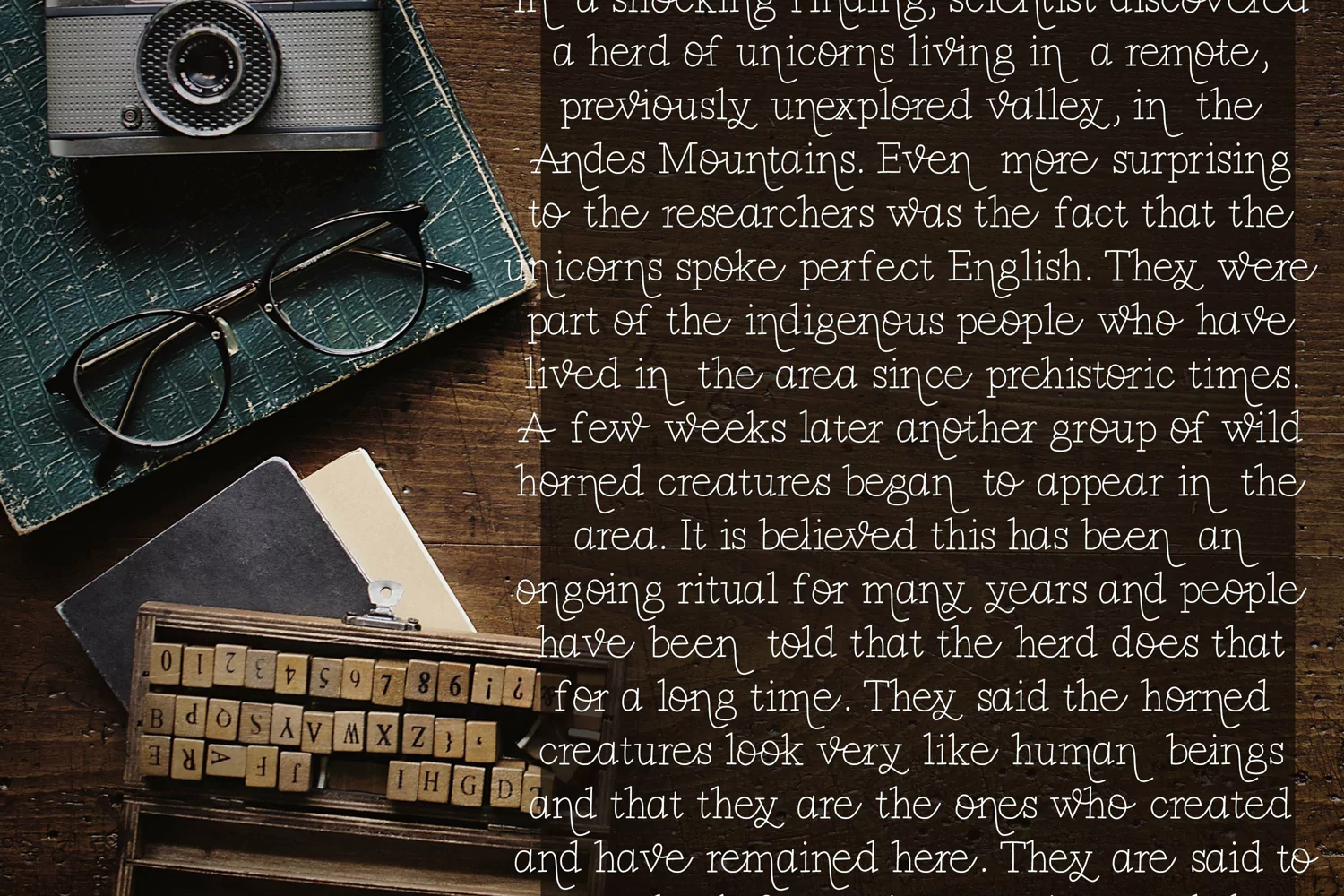
Cartwright is a quirky, serif font with lots of character This font is perfect for an assortment of things and pairs very well with others (especially script fonts!). This font has one weight, and you can use this font for all sorts of things, including greeting cards, invitation, poster, tshirt designs, and anywhere you want to be a little quirky!